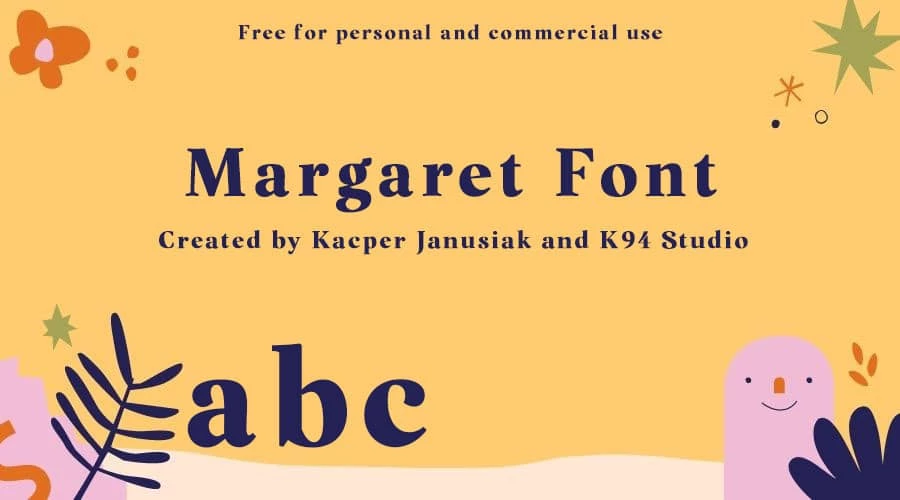
Margaret Serif Font
Margaret Serif Font is a display serif typeface designed by Kacper Janusiak And K94 Studio. For its high contrast and warm curves, Margaret font is one of the most popular serif typefaces. Margaret is a much more luxurious and modern font that gives any text a smooth, calming motion. The only style of Margaret font is Margaret-Bold.
As I said at the beginning, this is a premium-looking font and the legibility of this font is much improved so you can use this font for almost all purposes. However, the Margaret Serif font is very useful for headlines and logos.
Margaret is a luxurious and modern font that you can use for official documents and websites too. This font is a very eye-catching font, whenever you use it in your work it will look better than others.